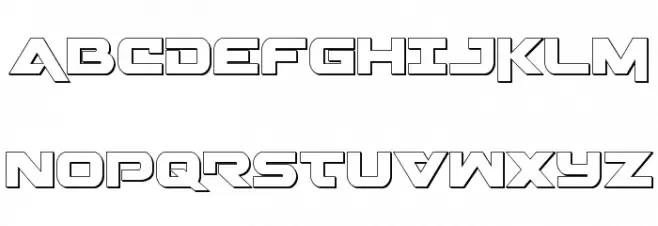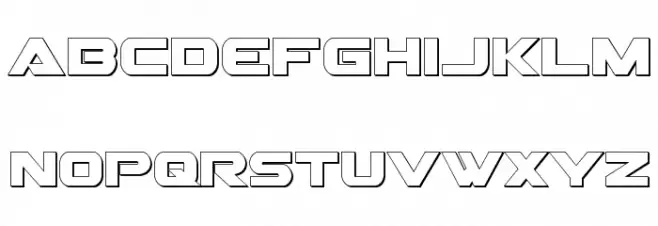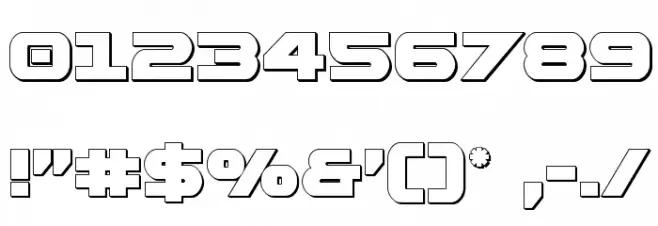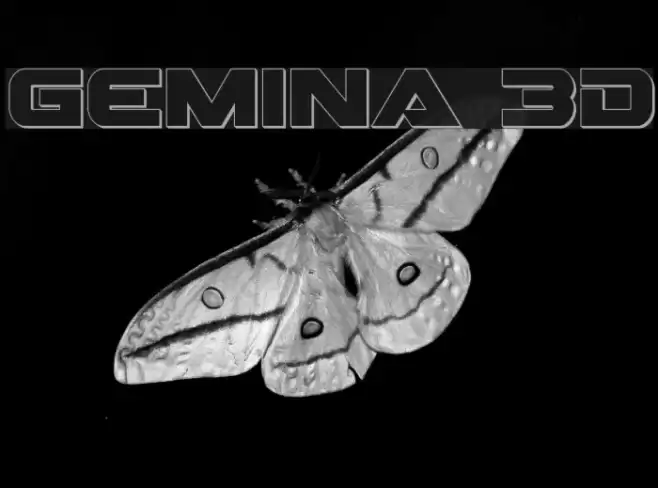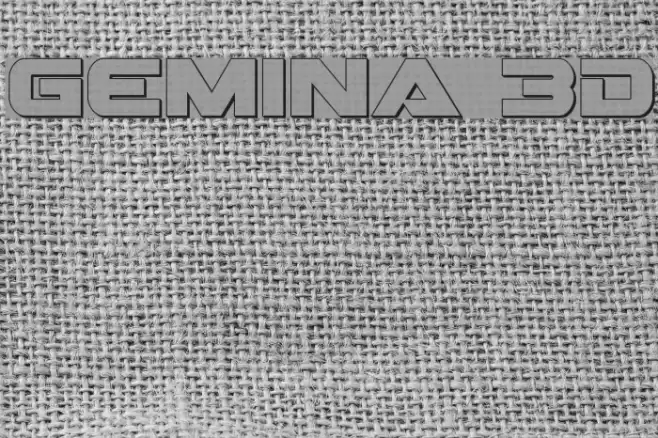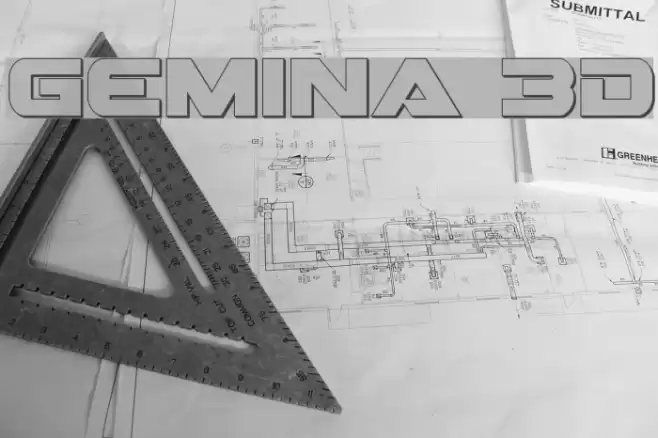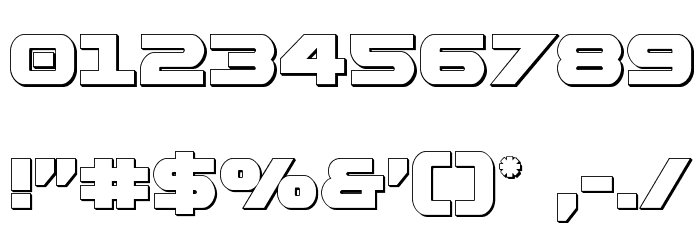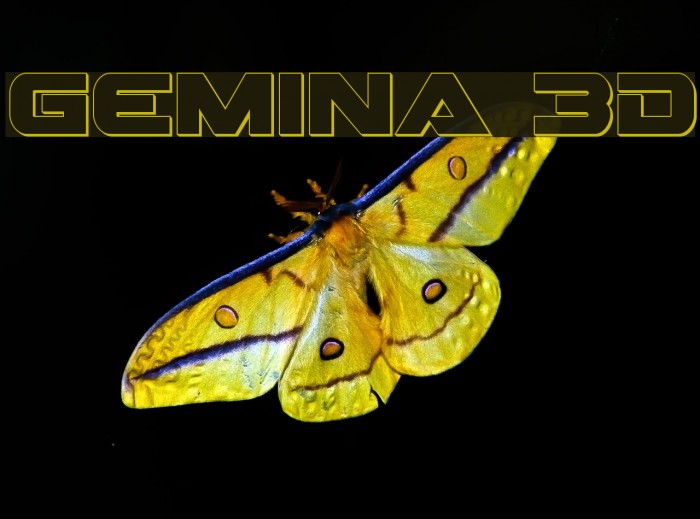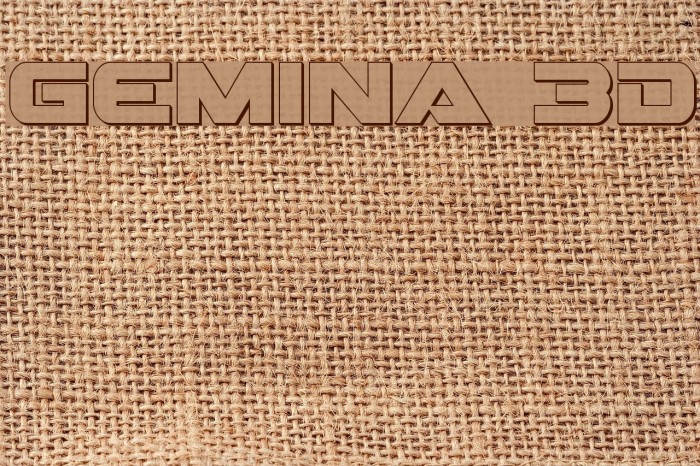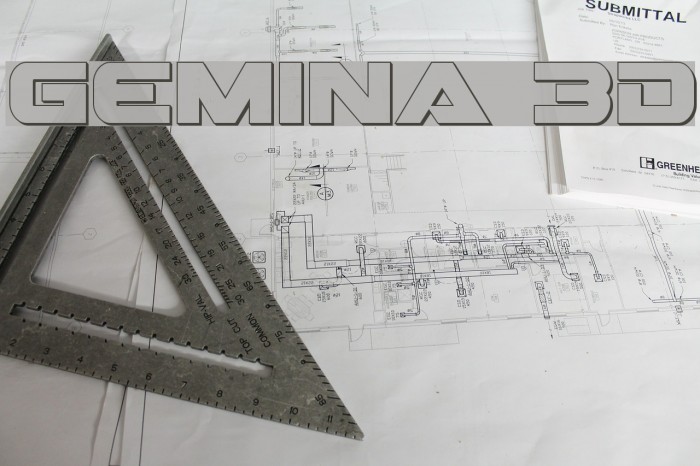
Gemina 3D
This font features a bold, geometric design with a three-dimensional effect that gives each character a sense of depth and structure. The uppercase letters are constructed with sharp angles and clean lines, creating a futuristic and modern appearance. The numbers and special characters maintain the same style, ensuring consistency across all glyphs. The font's outline style adds a unique touch, making it stand out in various design applications. Its distinct look is both eye-catching and versatile, suitable for a range of creative projects.
A bold, geometric font with a 3D effect and outline style, perfect for modern designs.
- Proposed Projects: Ideal for futuristic branding, tech-related projects, video game titles, and sci-fi themed posters.
- Use Case: Headlines, Logos, Posters